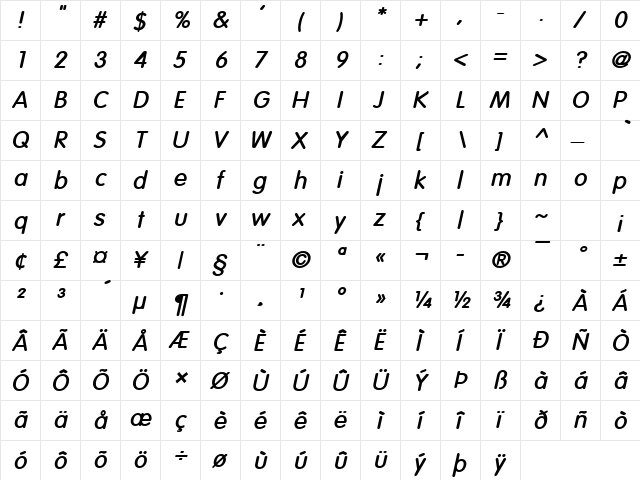
Vogel BoldItalic Font Preview
Design Context for Vogel Typeface
Vogel takes a measured approach to typography — its balanced proportions and neutral character make it a reliable workhorse for both digital and print work. Its italic angle brings a sense of urgency and motion to the letterforms. Its bold stroke weight gives it real presence on the page.
Pro Tip: Try Vogel for annotation and caption copy alongside an upright companion — the contrast in angle creates a dynamic but ordered typographic system.